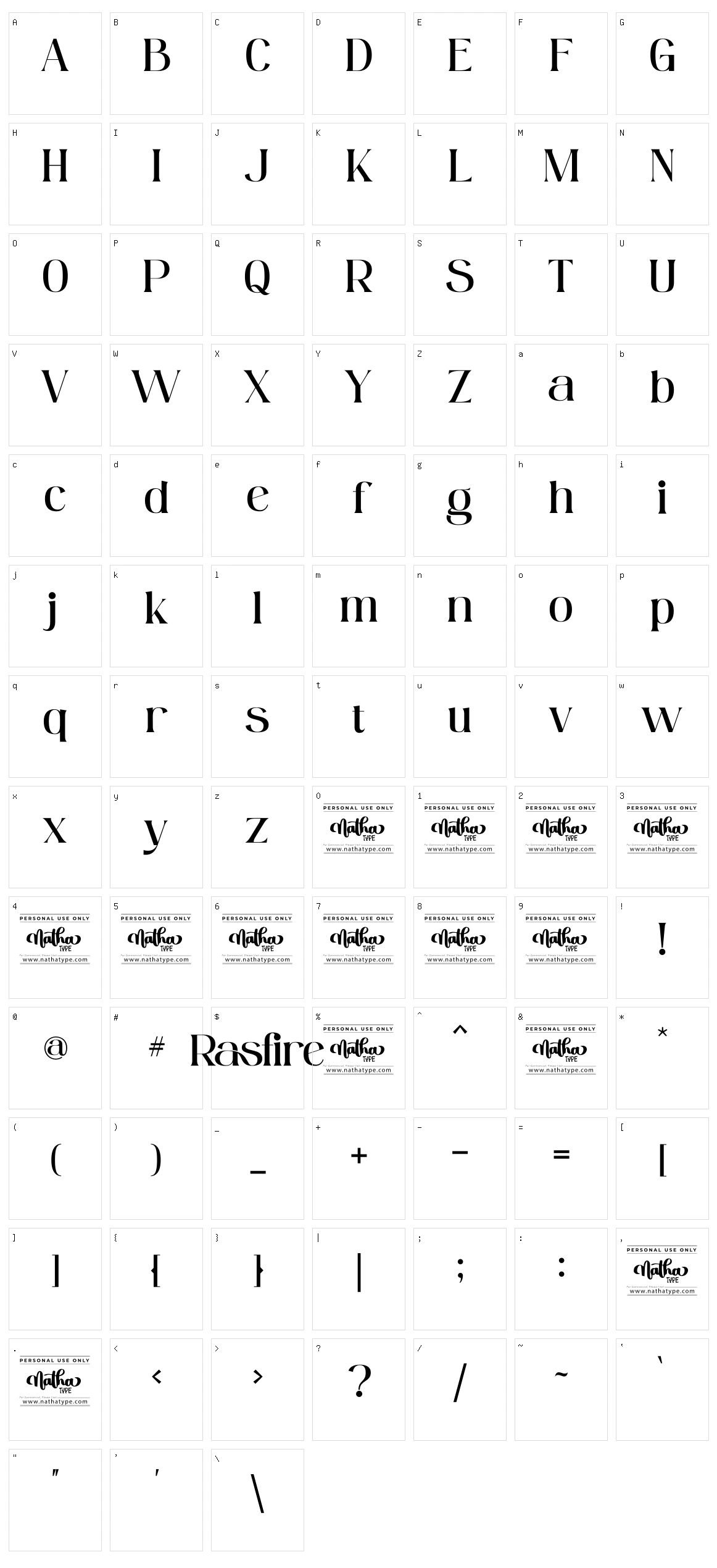
The free font Rasfire is carefully designed by Din Studio, showcasing a thoughtful balance of creativity and usability and falls under the Serif font style. When you download the ZIP file, it contains only 315.02 KB of font files, making it lightweight and quick to download. Please review the license details below to understand permitted usage and distribution rights. If license information is not available, we recommend using this font for personal projects only or contacting the author directly for commercial usage permissions.